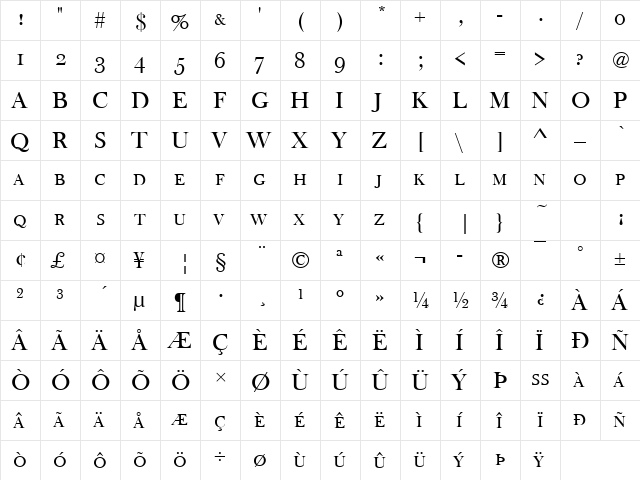
Baskerville Old Becker Caps Regular Font Preview
Baskerville Old Becker Caps Regular
Design Context for Baskerville Old Becker Caps Typeface
Baskerville Old Becker Caps takes a measured approach to typography — its balanced proportions and neutral character make it a reliable workhorse for both digital and print work.